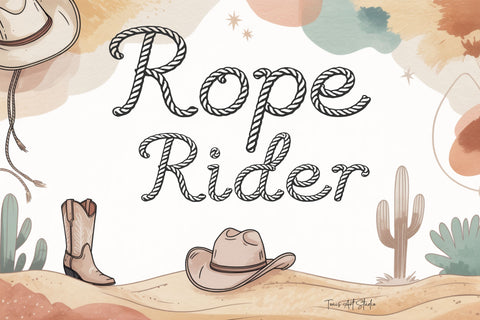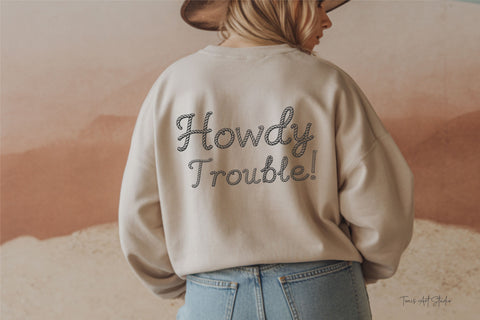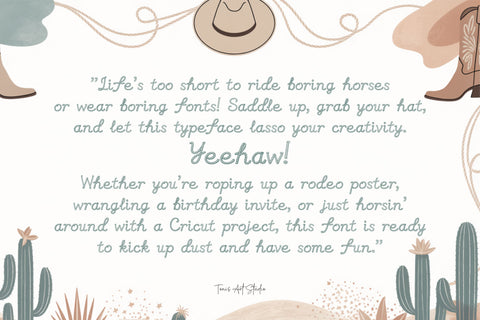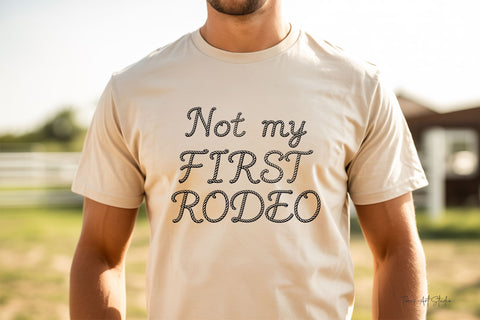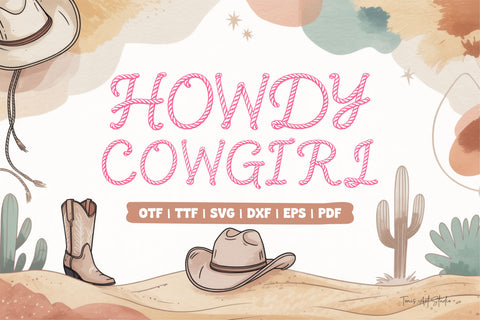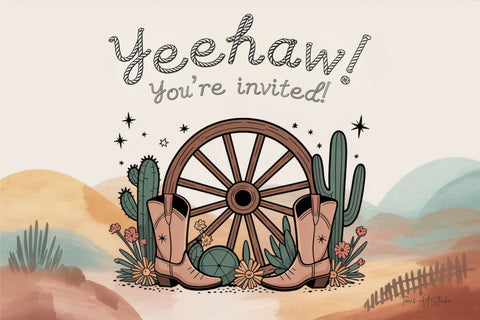
Rope Rider Font – Cowboy Rope Font, Western Lasso Letters, Rope Font
Rope Rider is a handcrafted cowboy rope font inspired by classic western lassos, ranch life, and authentic rodeo lettering. Designed with twisted rope strokes and smooth flowing curves, this font captures the spirit of the Wild West while remaining clean, readable, and craft-friendly.
Every letter in Rope Rider is carefully built to resemble real rope tension and movement, creating a bold western look that works beautifully for both decorative and practical designs. From rustic signs and t-shirts to kids crafts and DIY projects, this font adds instant cowboy character and western charm.